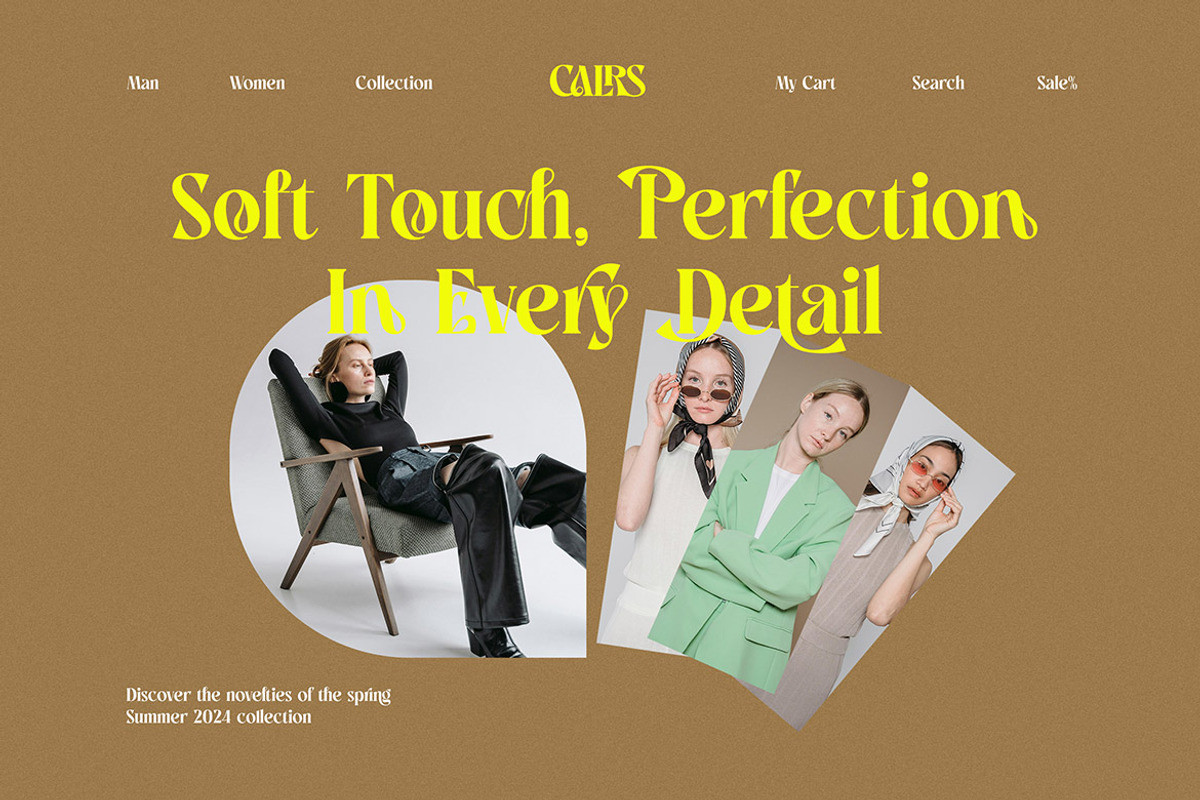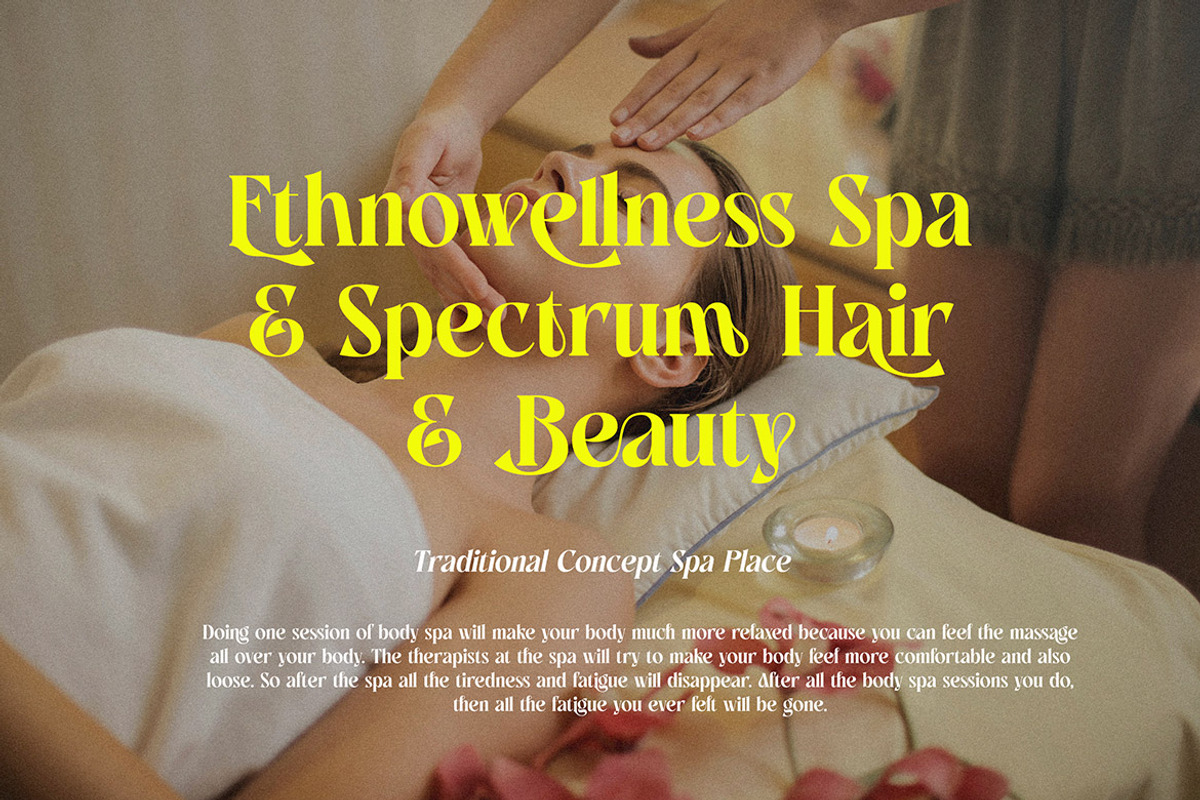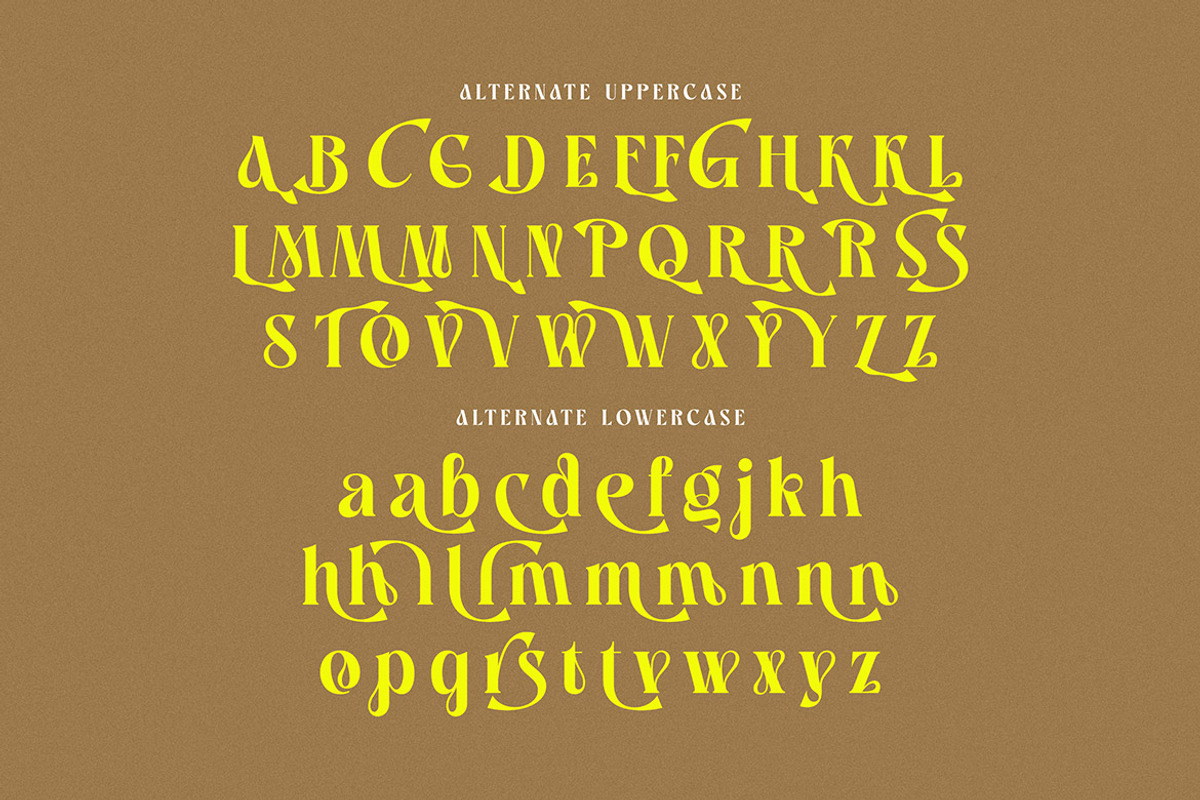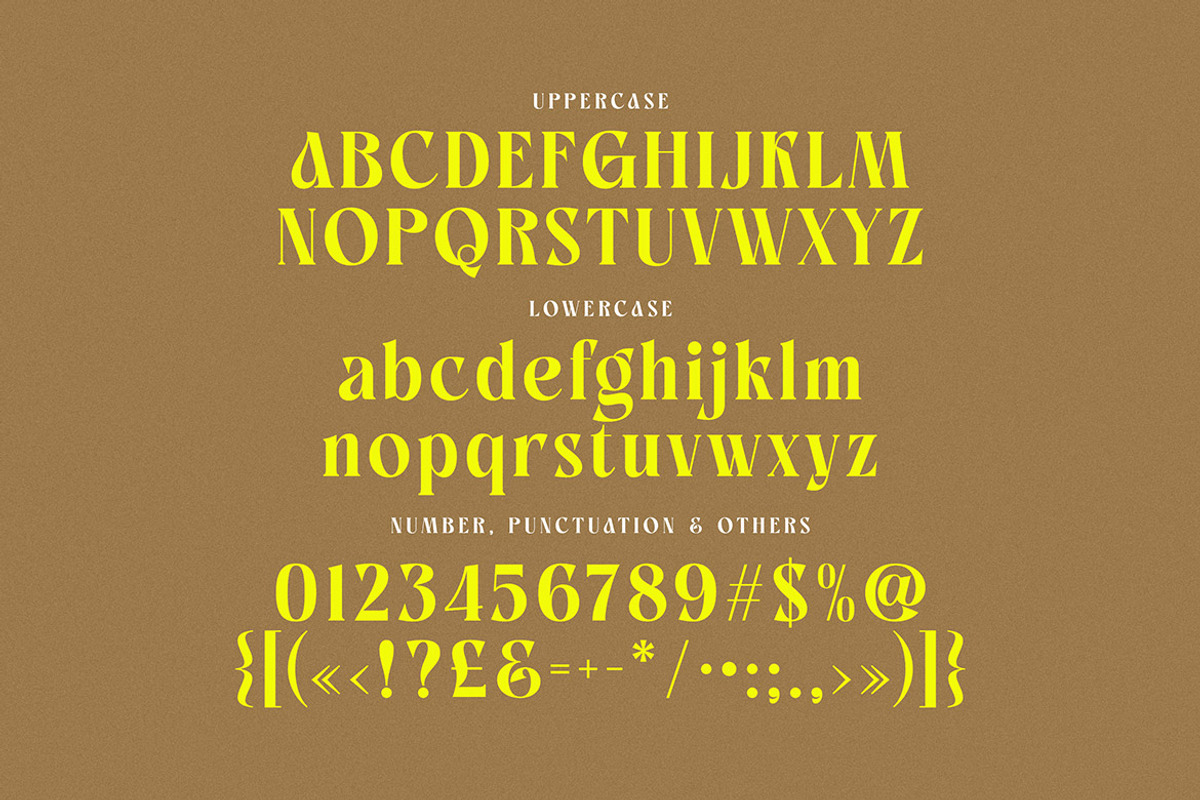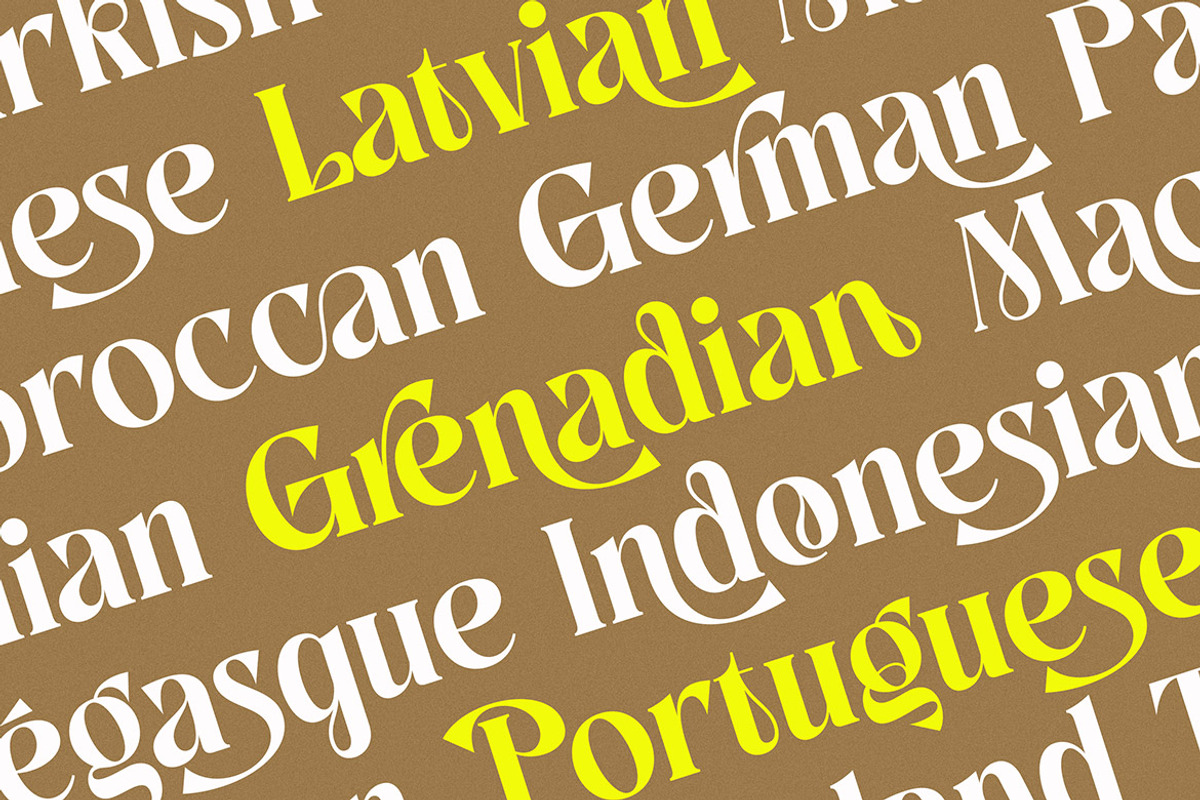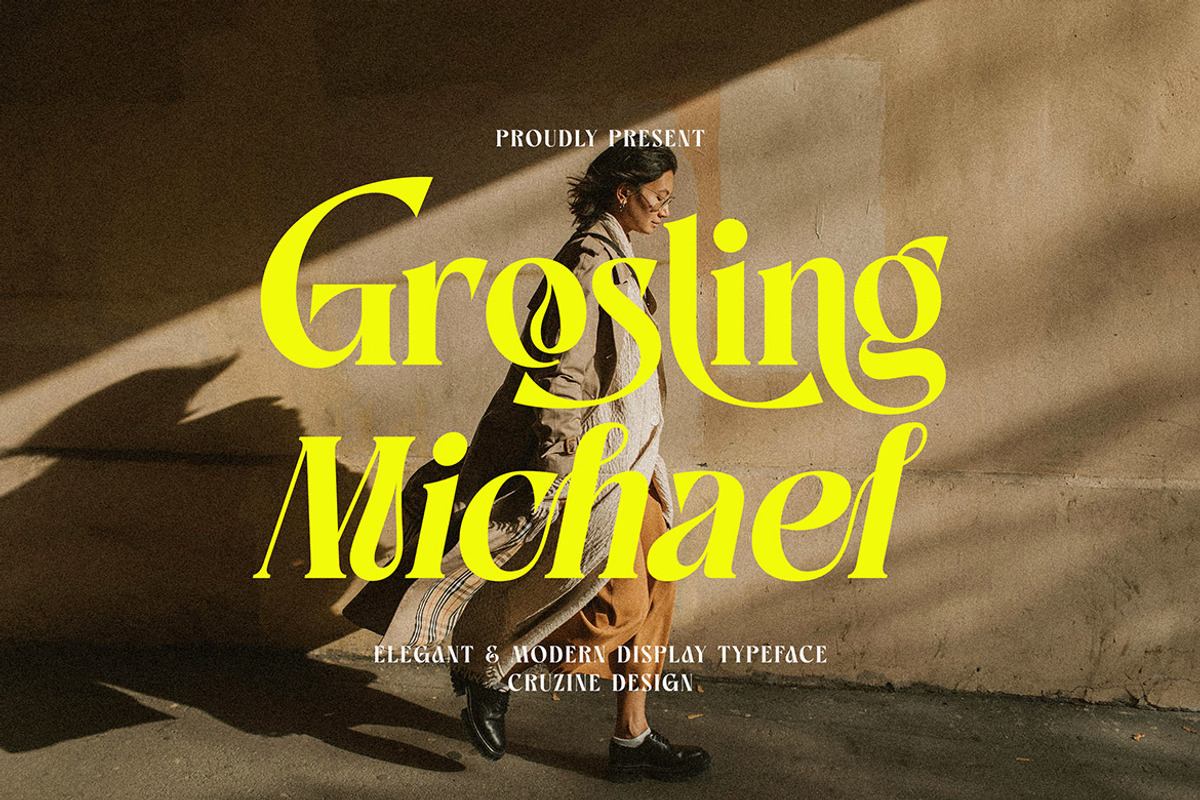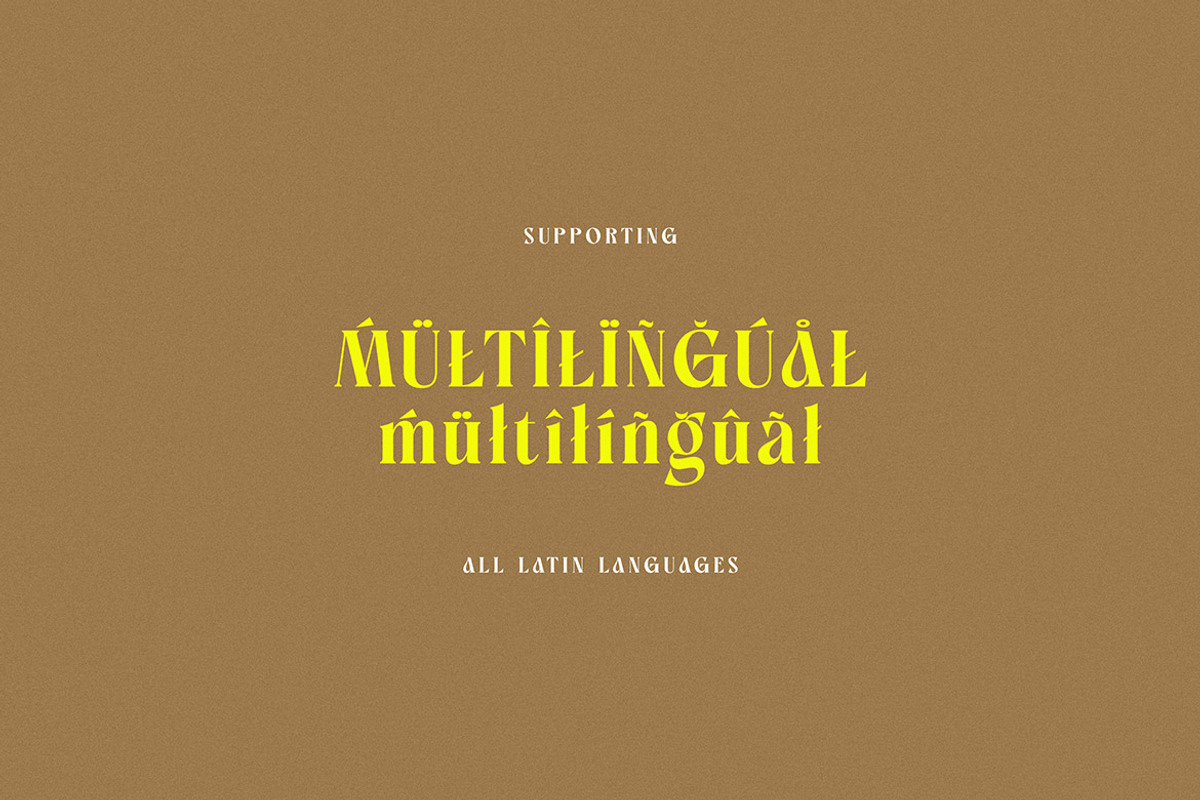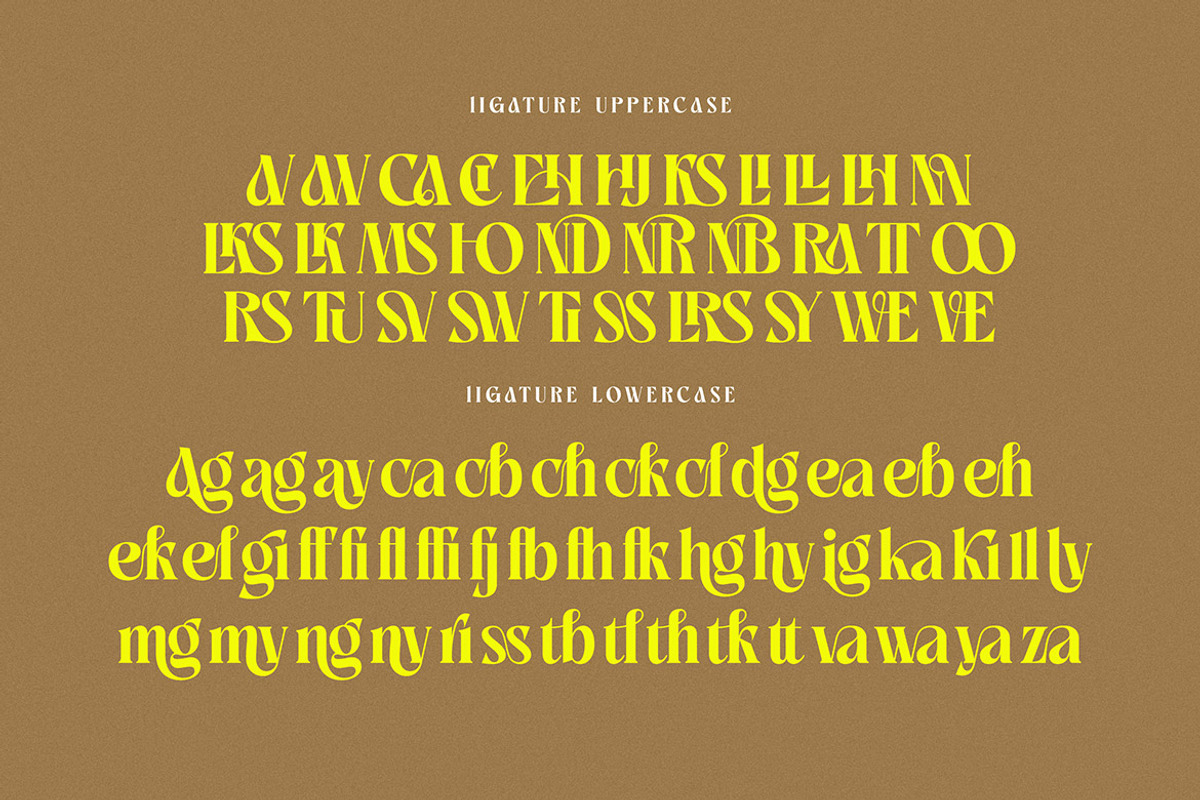
Grosling Michael Elegant Serif
Trendy, elegant, luxury, creative, corporate & modern style serif font for your new fancy projects. Stylish, romantic and classic style on Grosling Michael font will be great for any modern or classy branding project. Lot of alternates and ligatures will help you to create unique and original logo design or website header! Enjoy :)
- Alternate characters & lot of ligatures
- Great for modern branding projects!